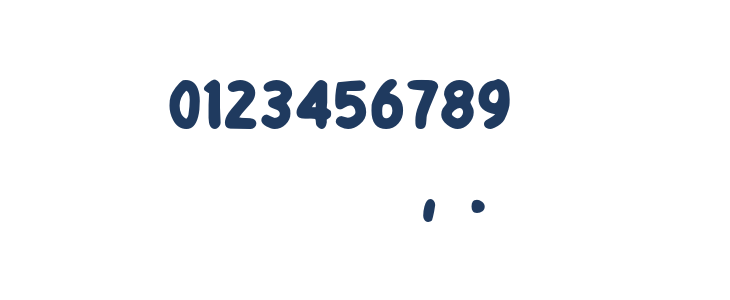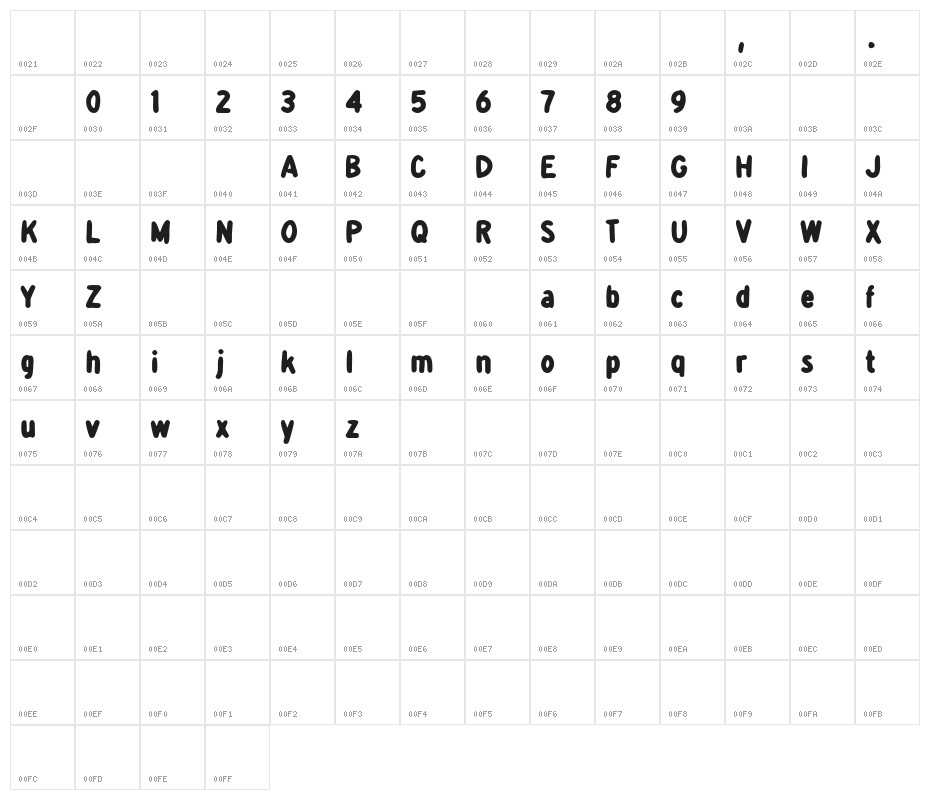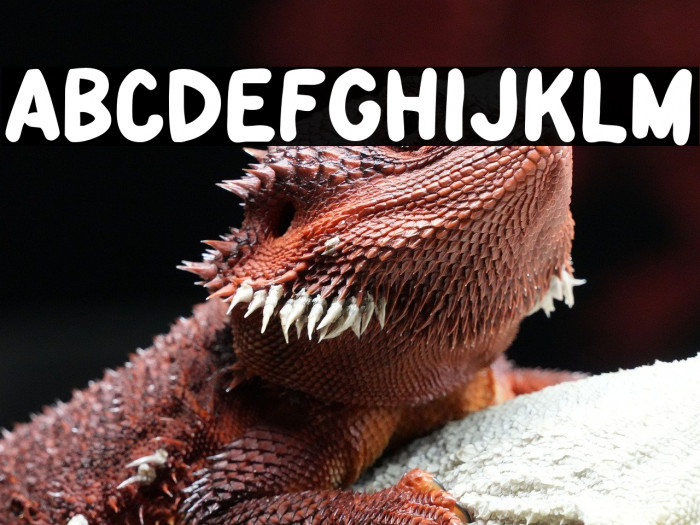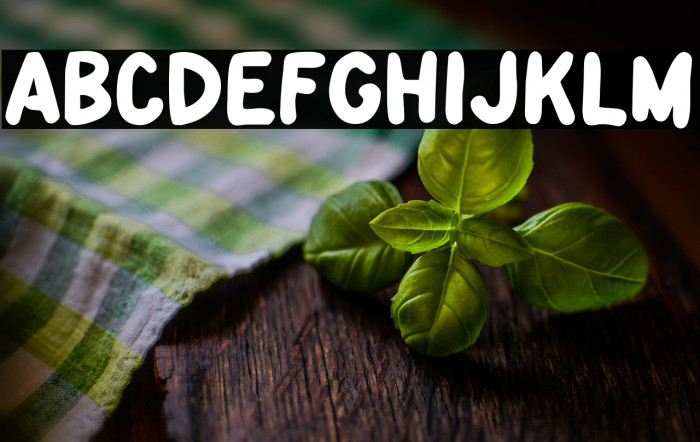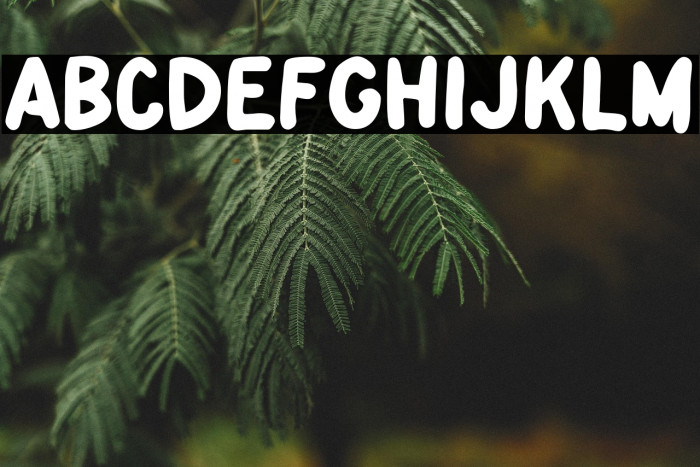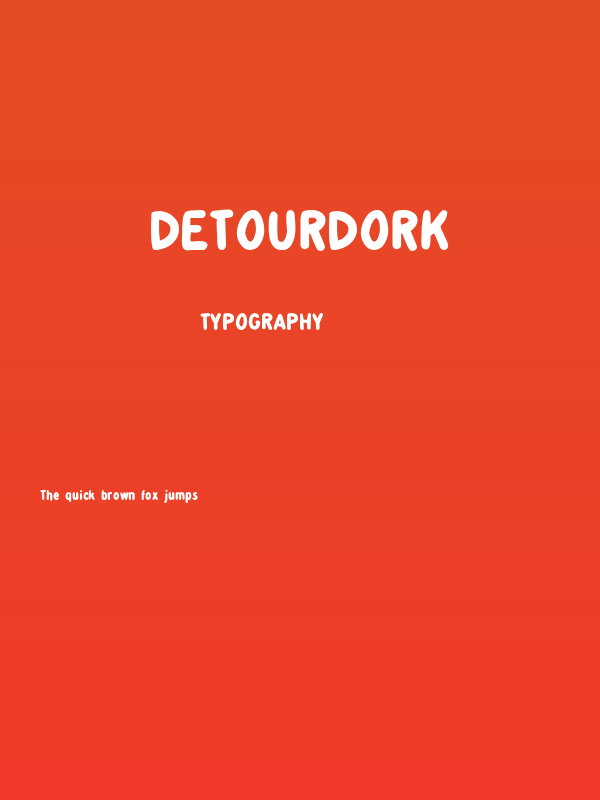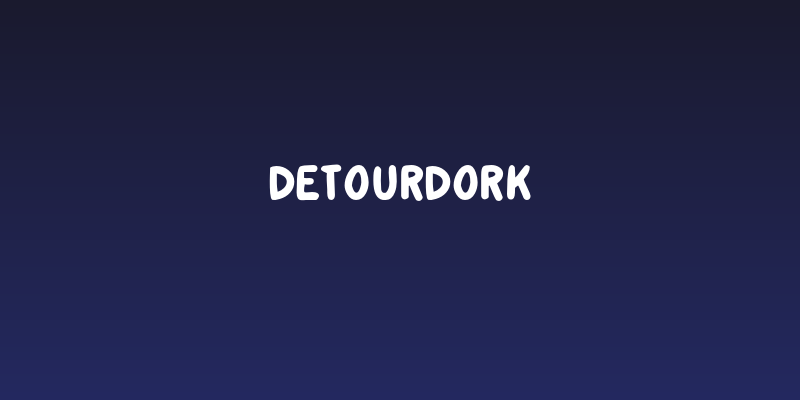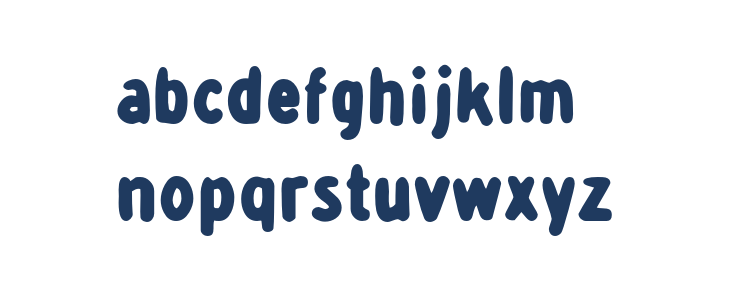
DetourDork Font
DetourDork Description
This playful and bold font features rounded, thick strokes that give it a friendly and approachable appearance. The characters are slightly irregular, adding a whimsical touch to the overall design. The uppercase and lowercase letters maintain a consistent style, with a slightly exaggerated width that enhances readability. The numbers and special characters follow the same playful aesthetic, making this font suitable for creative and informal applications. Its unique style is perfect for projects that require a fun and engaging visual element.
| Proposed Projects | Ideal for children's books, playful branding, posters, and social media graphics. |